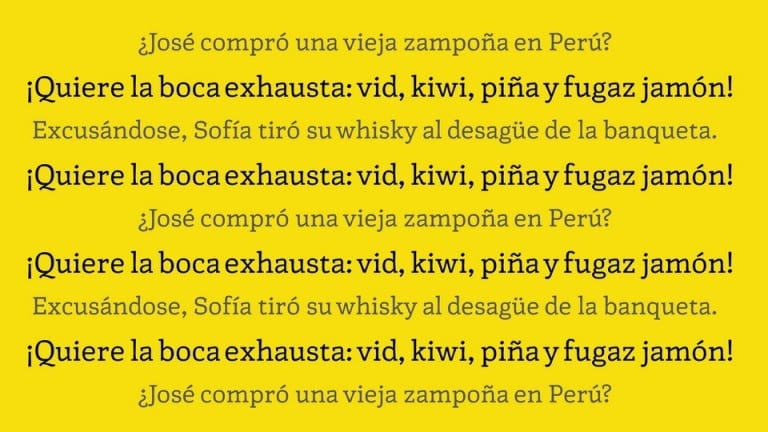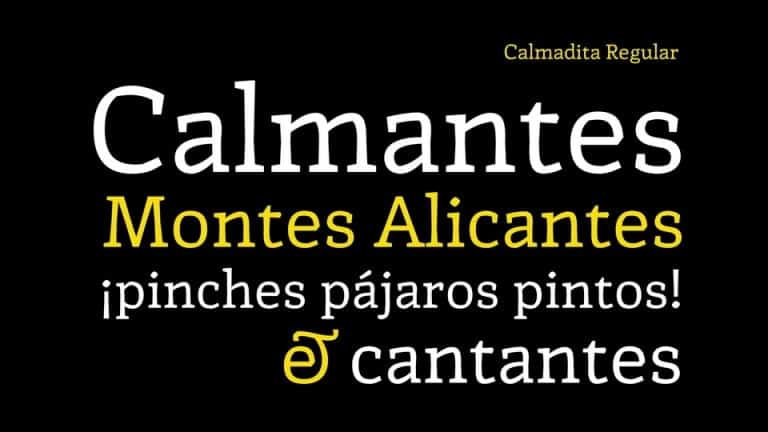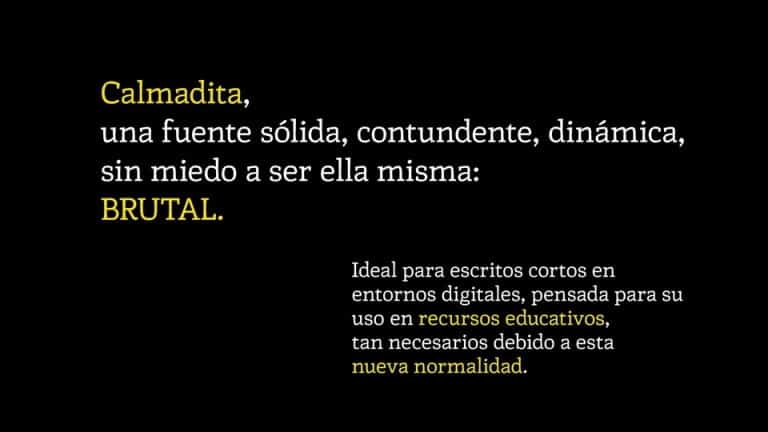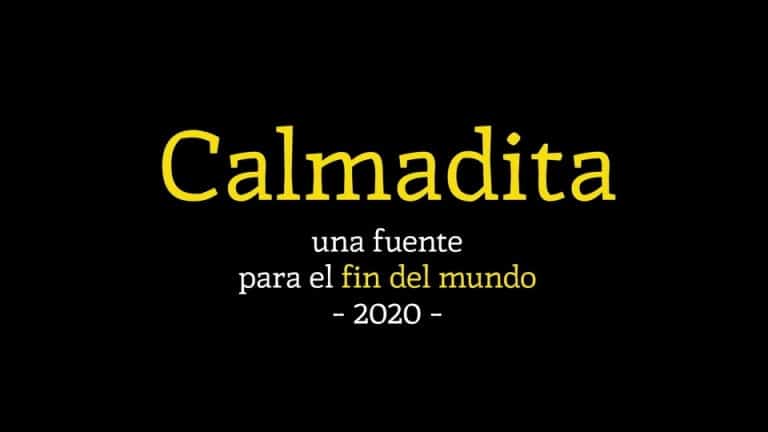
Calmadita Serif Font
Calmadita Serif Font is an elegant font with quirky curved serif. Made from font designer named Sic Typus Creatus Est. This typeface is a slab serif typeface ideal for medium texts in digital environments such as Kindle and Ipad devices. With its dynamic and brutal personality, it was intended for use in educational resources and digital literature for young people and children.
Calmadita was developed as part of the 1st Letrastica Community Typographic Tournament, 2020, by the Sic Typus Creatus Est team: Dafne Martínez, Jorge George, Leonardo Delgado, Iordan Evair, Federico Biagioli.